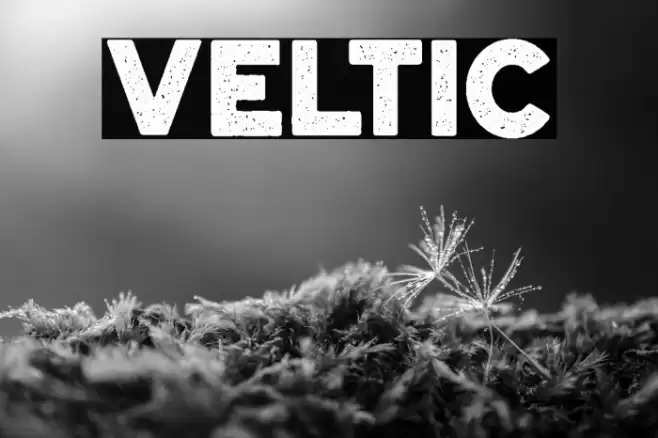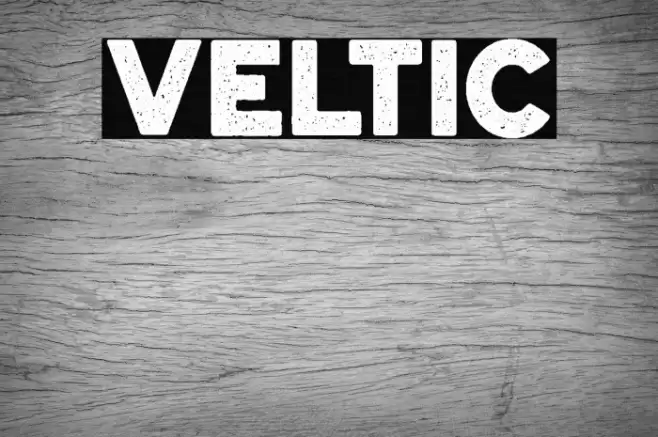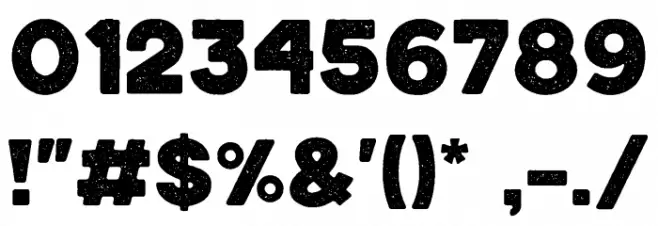
VELTIC Font
VELTIC Description
This font features a bold, textured style with a speckled pattern that gives it a rugged, vintage feel. The uppercase letters are prominent and sturdy, making a strong visual impact. The numbers and special characters maintain the same boldness and texture, ensuring consistency across all glyphs. The font's design is reminiscent of retro signage or vintage posters, with a modern twist due to its unique texture. The characters are evenly spaced, providing a balanced appearance that enhances readability despite the boldness and texture.
A bold, textured font with a vintage, rugged style from Regular fonts.
- Proposed Projects: Ideal for vintage-themed posters, retro branding, and eye-catching headlines.
- Overall Style: Vintage